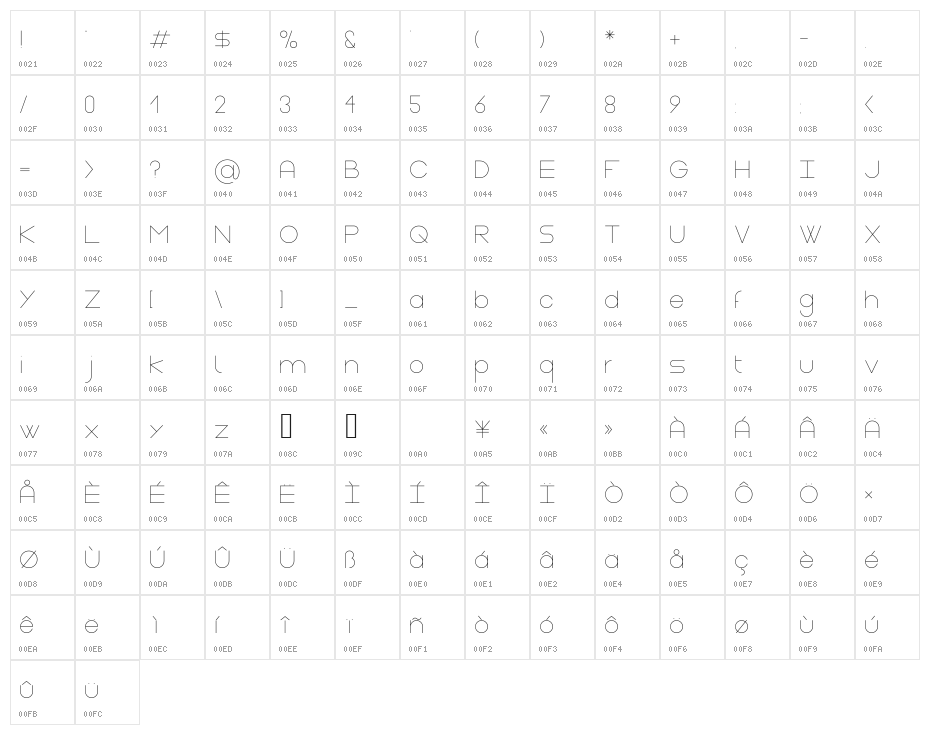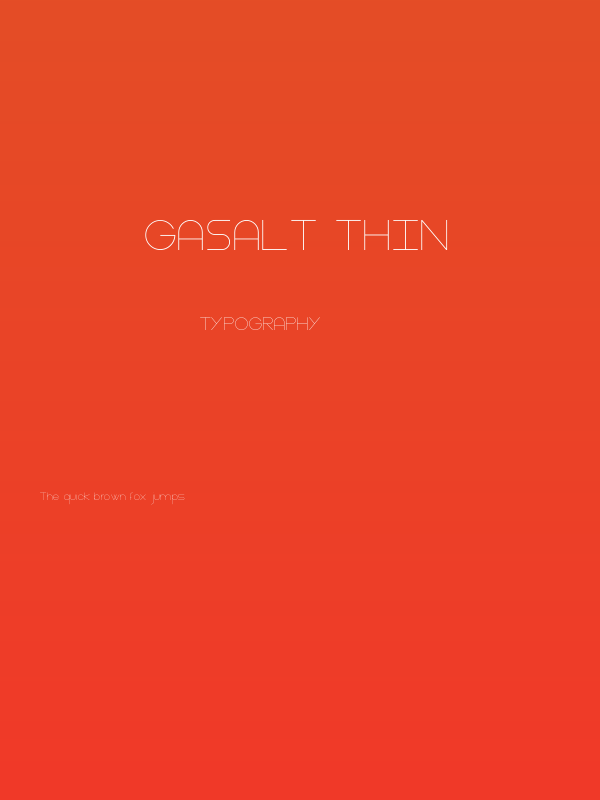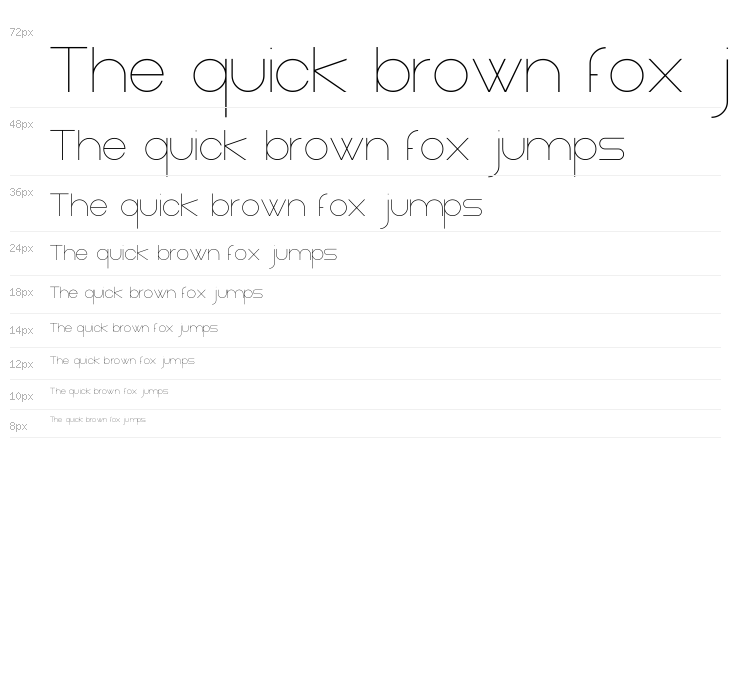
Gasalt Thin Font
Gasalt Thin Description
This font features a sleek and modern design with thin, clean lines that give it a minimalist and contemporary appearance. The characters are geometrically structured, providing a sense of precision and clarity. The uppercase and lowercase letters maintain a consistent style, with smooth curves and sharp angles that enhance readability. The numerals and special characters are designed to match the overall aesthetic, making them suitable for various applications. The font's simplicity and elegance make it versatile for both digital and print media.
| Proposed Projects | Ideal for branding, editorial design, digital interfaces, and minimalist posters. |